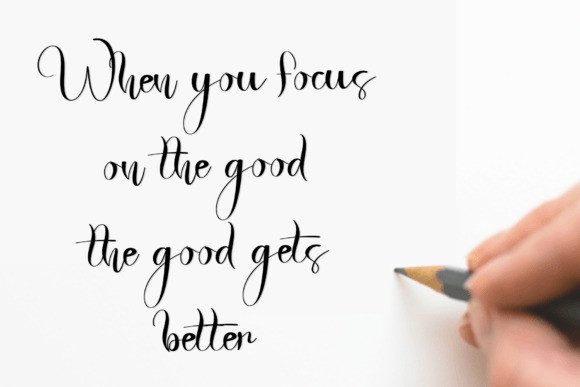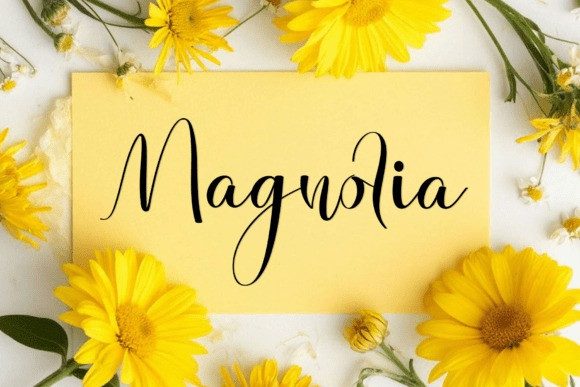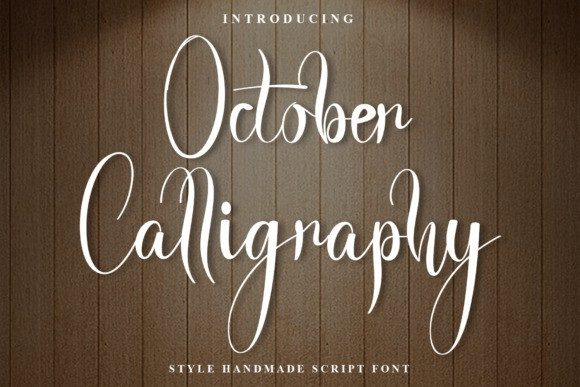
October Calligraphy Script Font
October Calligraphy Script Font is a truly enchanting handwritten script that captures the soul of autumn elegance with every stroke.Designed to feel effortlessly personal yet polished, this font blends high-contrast letterforms with whimsical curves and delicate flourishes that make it stand out from standard calligraphy fonts. Its elongated ascenders and uniquely looped terminals give it a poetic rhythm, making every word look like a work of art.
Whether you’re crafting wedding stationery, product packaging, logo designs, or social media content, October Calligraphy brings a rare combination of refinement and individuality. Its natural handwritten feel and attention to detail make it ideal for designers who want to leave a lasting impression through expressive typography. This is more than a font — it’s a signature of style and personality.